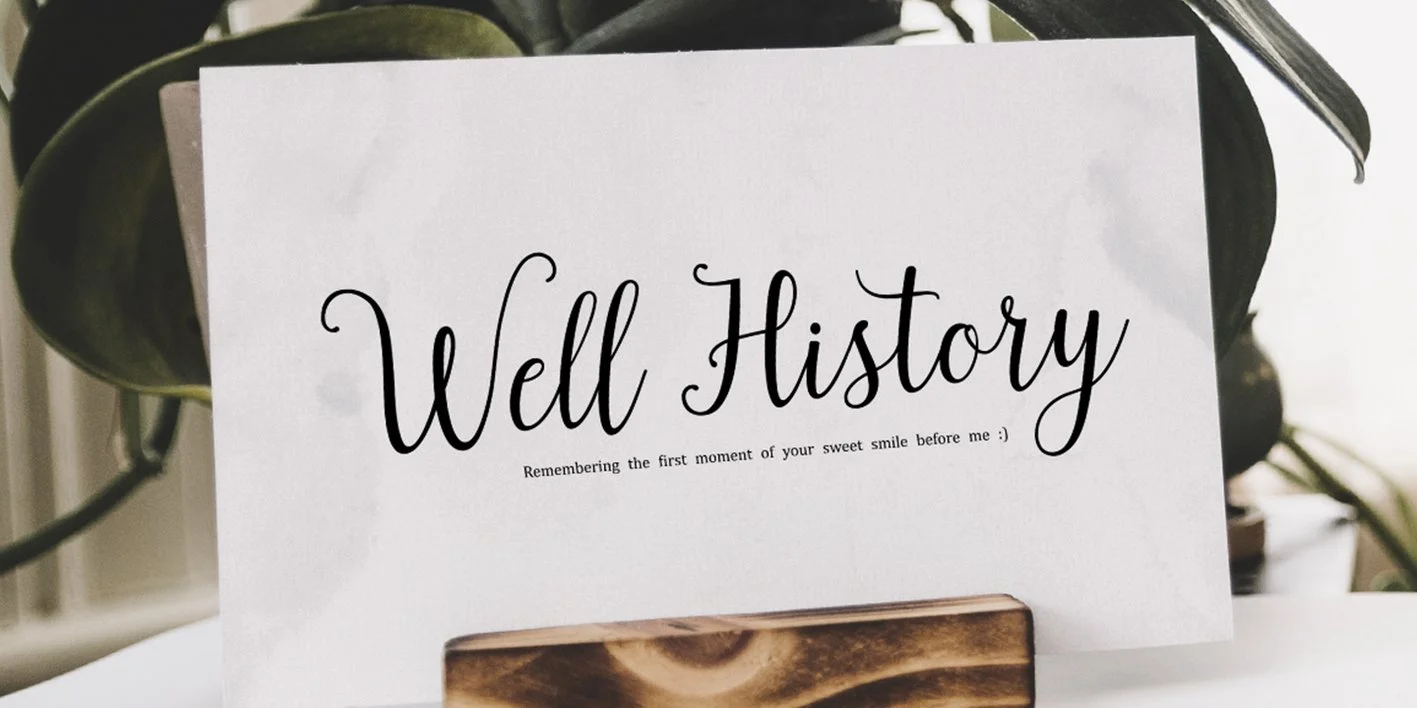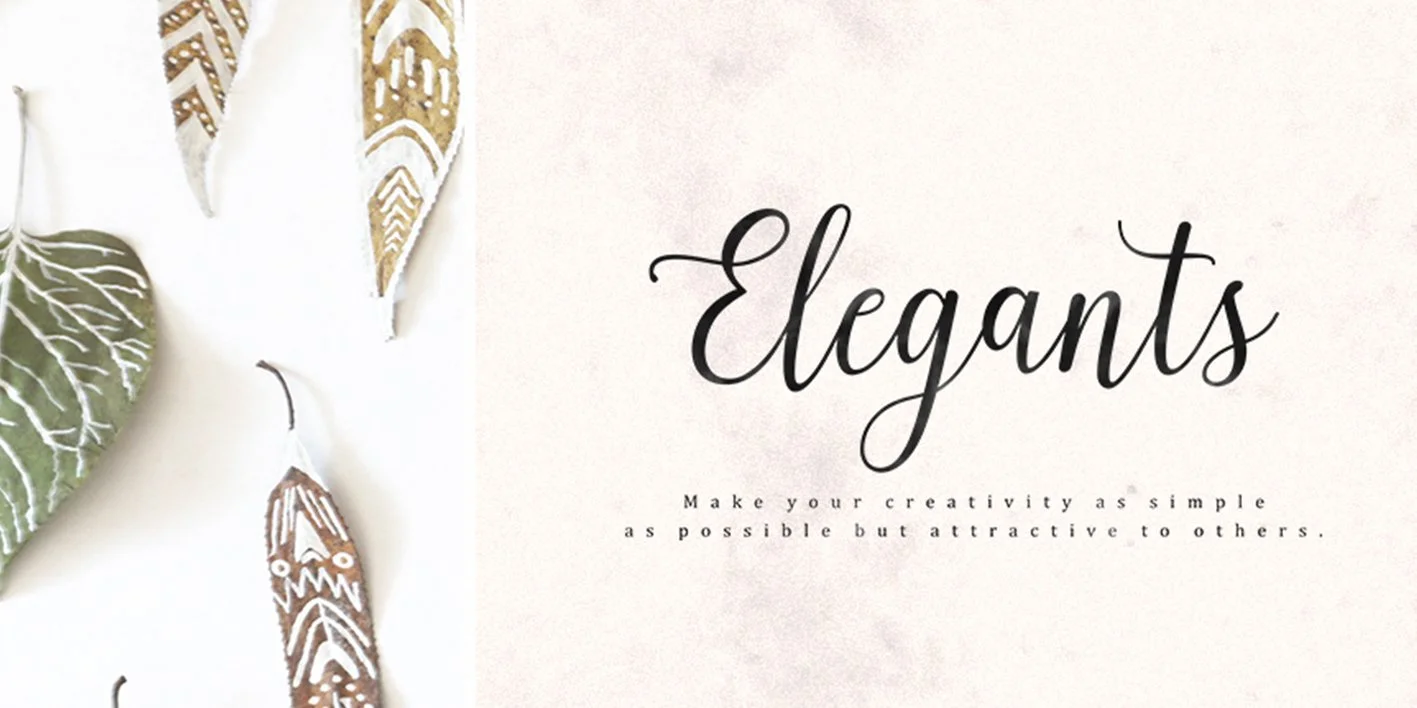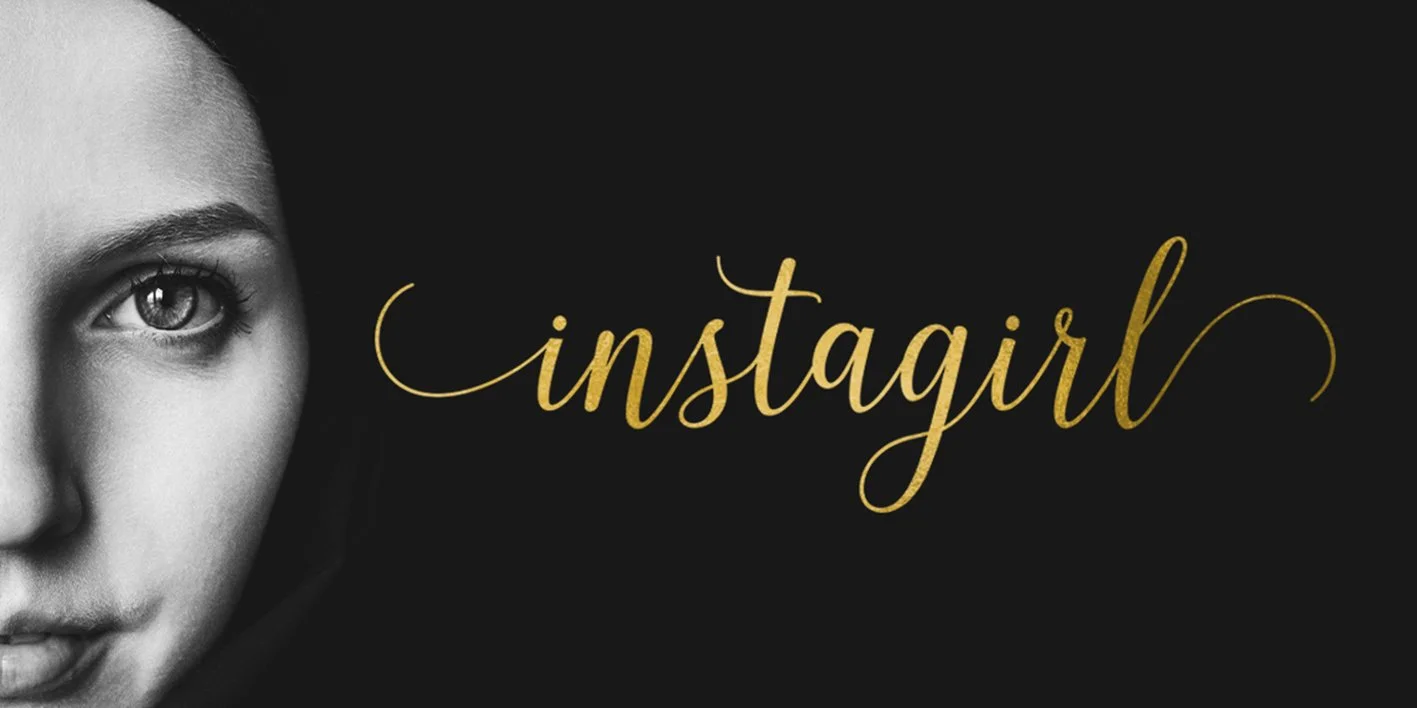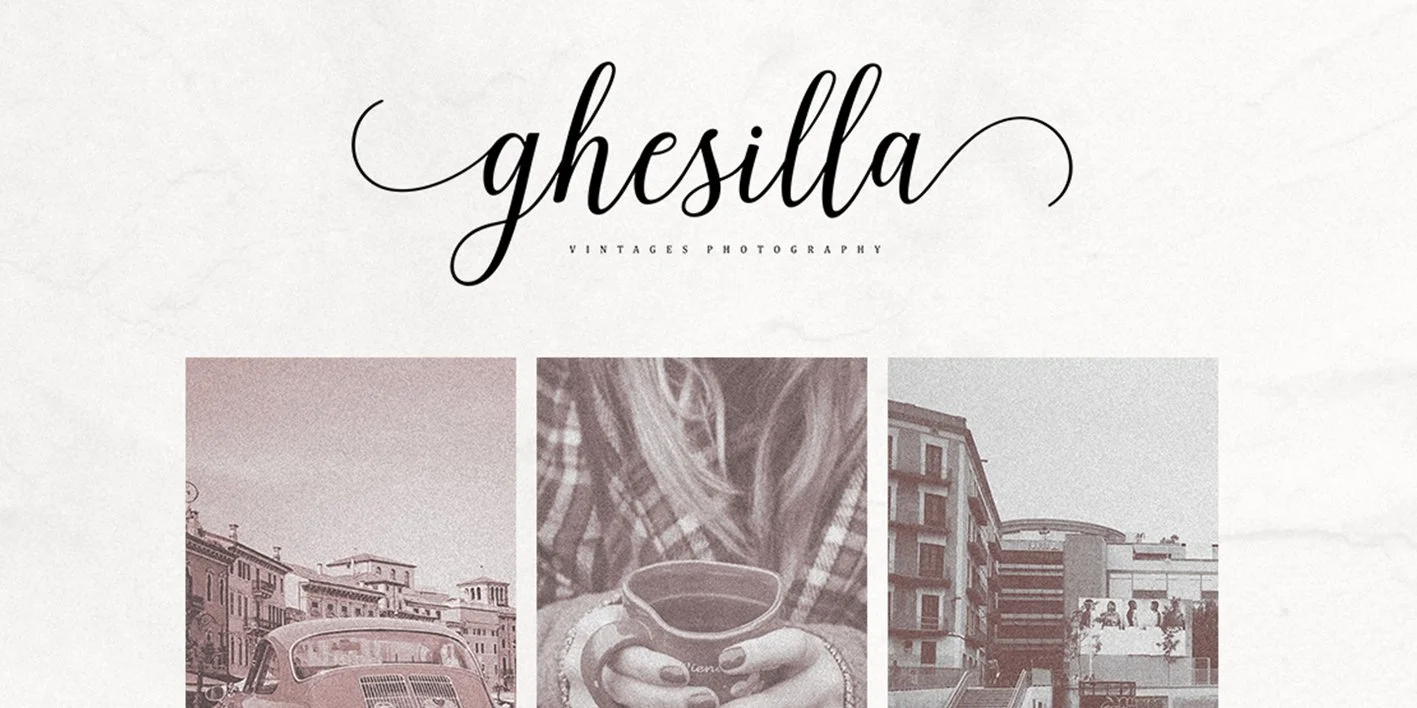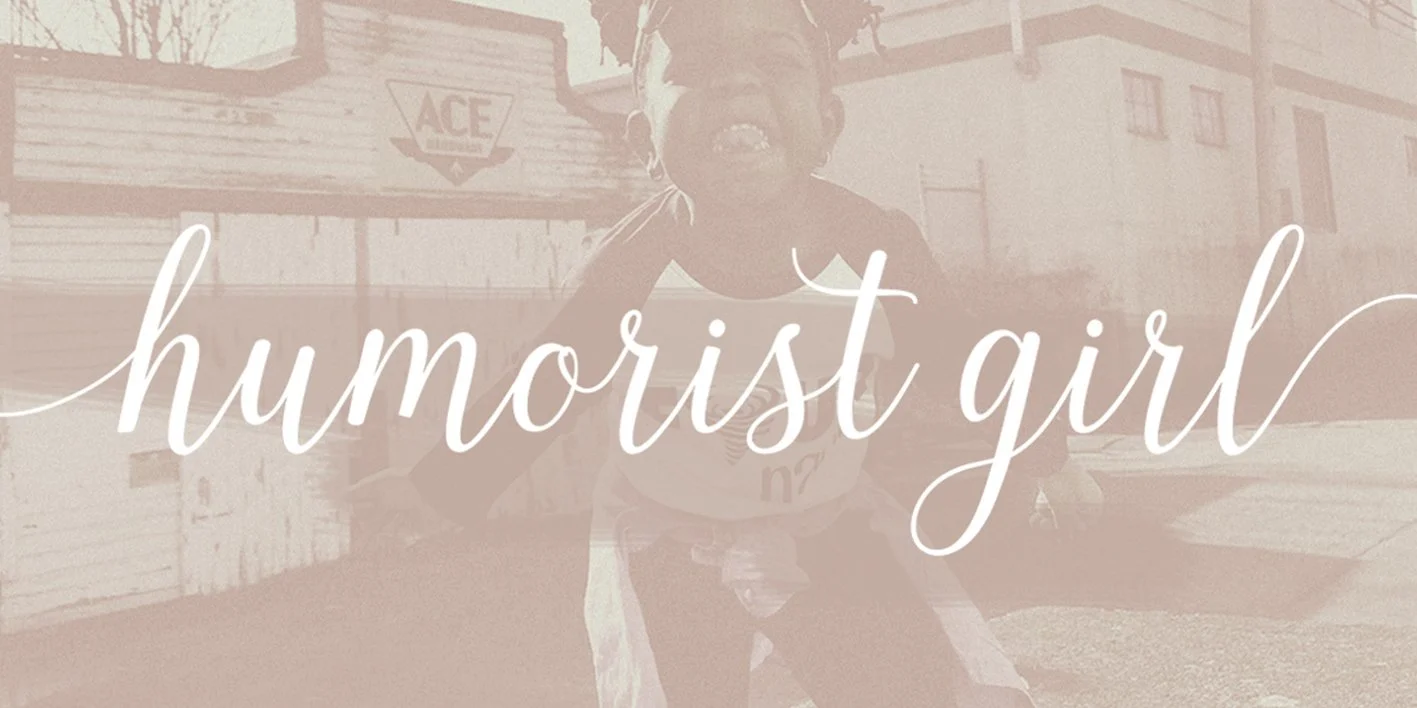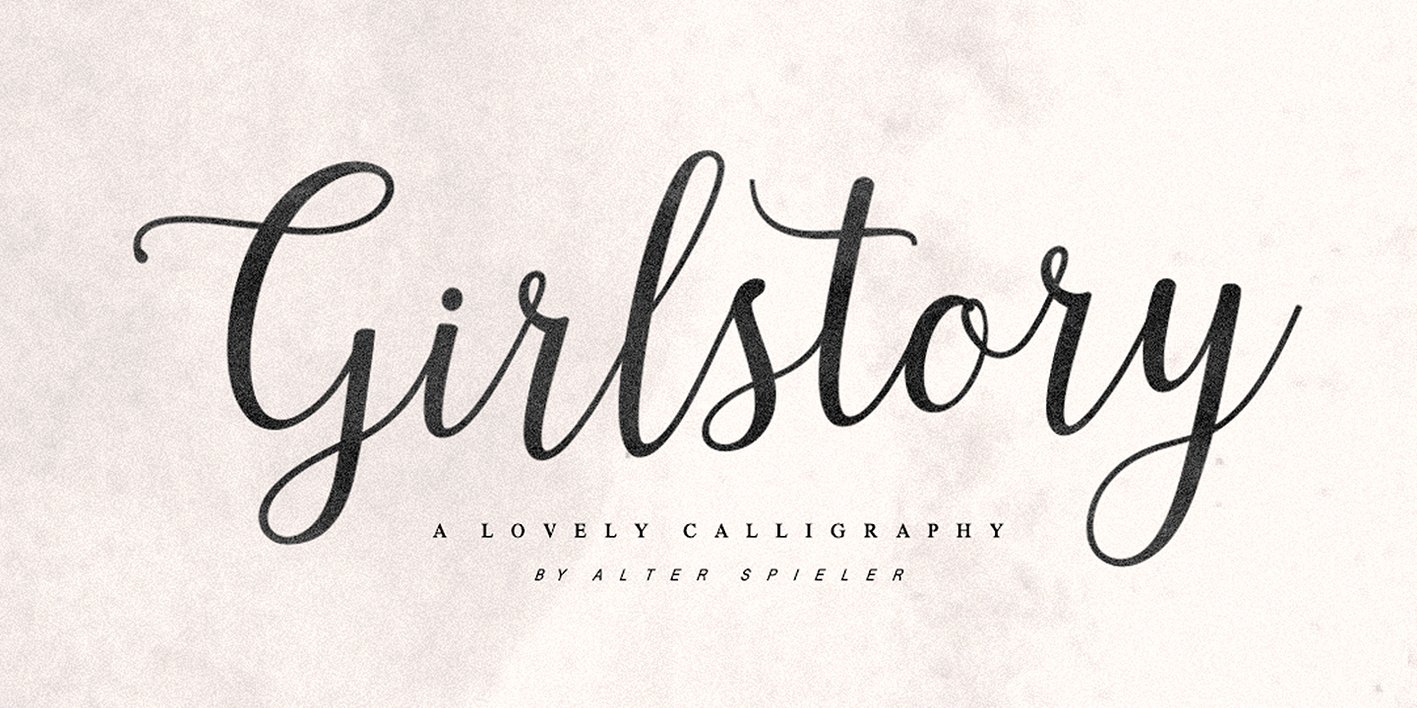
Girlstory Script Font
Few typefaces manage to balance visual harmony and precise spacing with genuine day-to-day practicality. Girlstory Script is one of them. The typeface brings an elegant, calligraphic sensibility to a broad range of creative disciplines, with optical balance across all weights that holds up whether the work is print-first or screen-first.
In practice, Girlstory Script proves particularly effective for boutique logos, signage systems, high-end cosmetic packaging, bridal materials, wedding invitations. Designers reaching for it find that the type decisions feel resolved rather than laboured — a useful quality when client timelines are tight.
The range of applications extends to product labels, feminine branding, greeting cards, event signage. That breadth is deliberate: the proportions and spacing were stress-tested across a wide range of mock briefs before the typeface was finalised.
Girlstory Script sits comfortably alongside both classic and contemporary typefaces in multi-font hierarchies. It takes direction rather than competing for attention — a quality that experienced designers know is harder to find than it appears.
In-house creative teams at consumer brands find Girlstory Script a reliable choice for projects that demand both personality and restraint. The design avoids the self-conscious quirkiness that dates quickly, settling instead for considered distinctiveness that holds up over time.